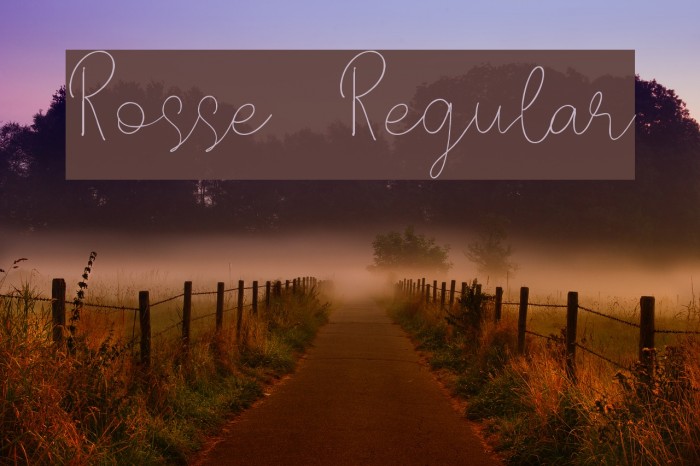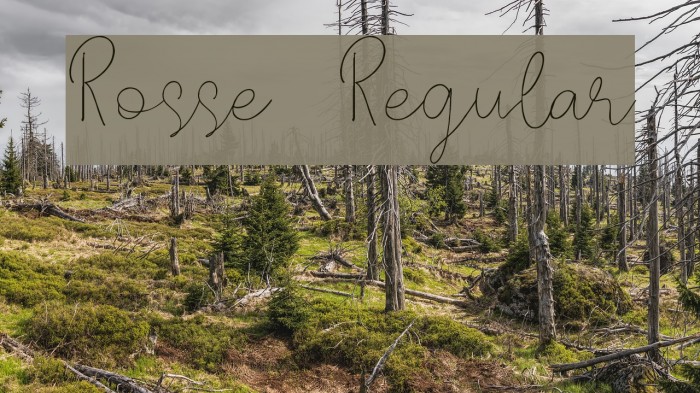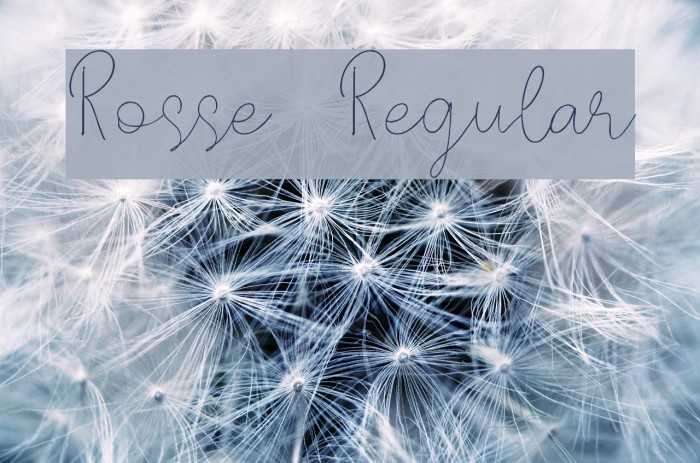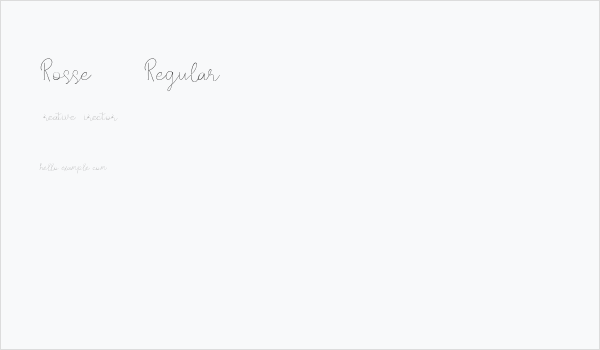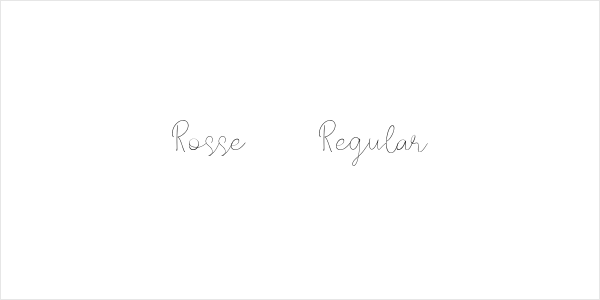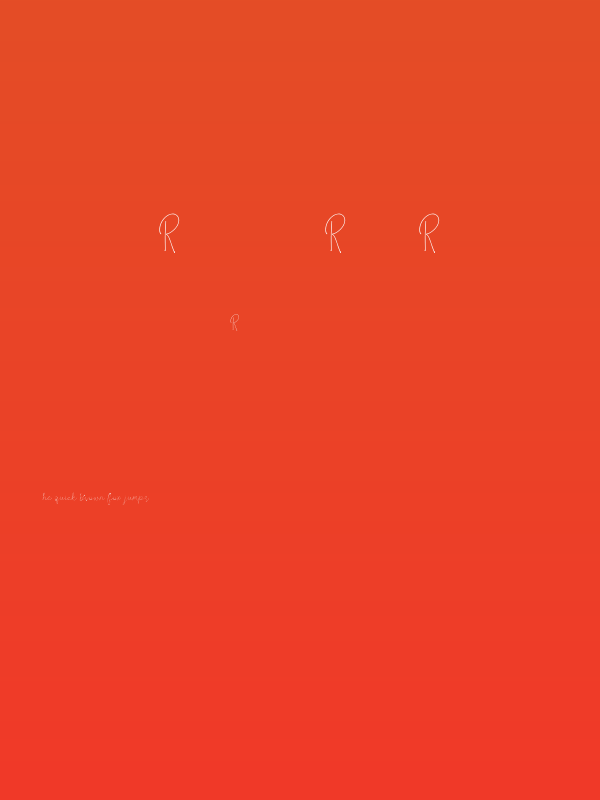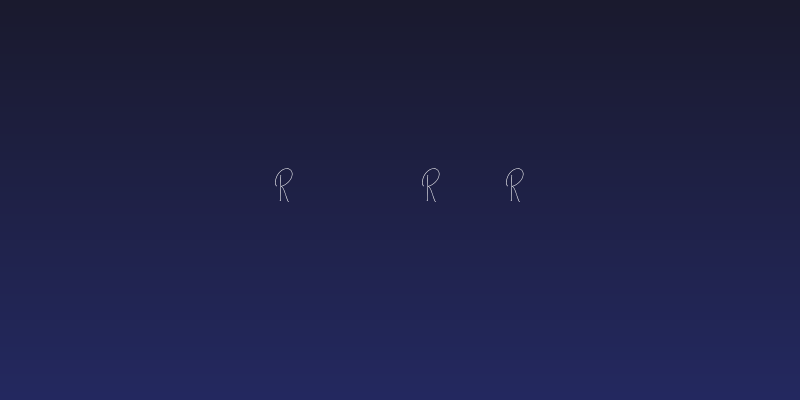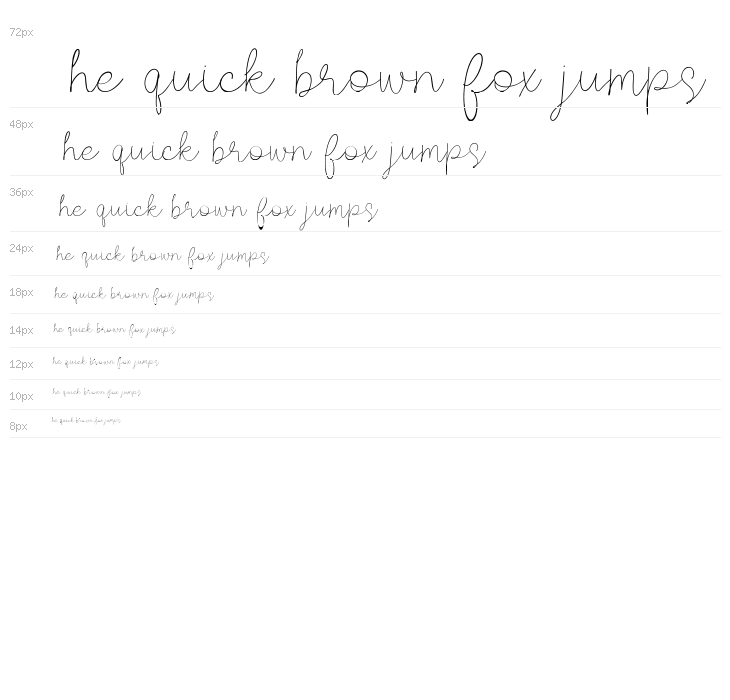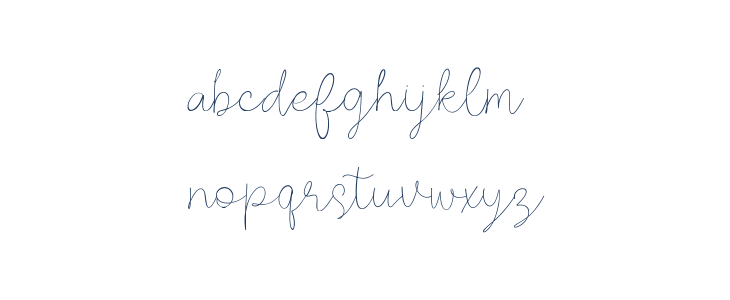
Rosse DEMO Regular Font
Rosse DEMO Regular Description
This font features a delicate, handwritten style with a graceful and flowing appearance. The characters are elegantly connected, giving it a cursive feel that is both sophisticated and approachable. The thin strokes and gentle curves create a sense of lightness and fluidity, making it ideal for projects that require a personal touch. The uppercase letters are slightly more structured, providing a nice contrast to the more freeform lowercase letters. This font is perfect for adding a touch of elegance and charm to any design.
Overall StyleElegant, Handwritten
Use CaseLogos, Invitations, Personal Branding
Proposed ProjectsIdeal for wedding invitations, greeting cards, personal branding, and elegant packaging designs.